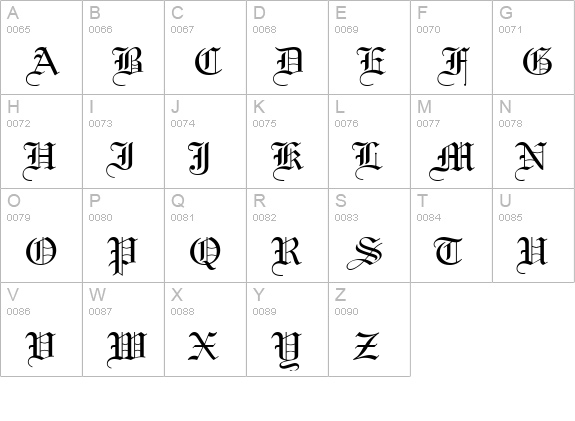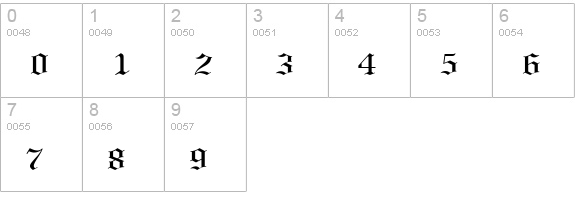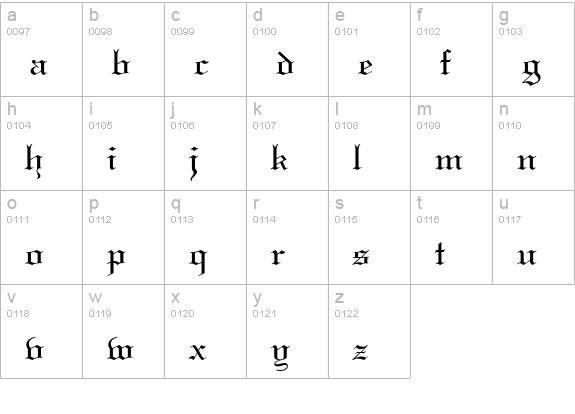
Gothic 57 Normal Font Details
Gothic 57 Normal is the standard, neutral variant in the Gothic typeface family \xE2\x80\x94 well suited to general body text, paragraphs, and standard typographic work.
Gothic 57 Normal font is a timeless and elegant typeface that exudes a sense of sophistication and mystery. Its intricate details and sharp edges give it a gothic and classic look that is perfect for a wide range of design projects. Whether you are creating invitations, posters, or branding materials, Gothic 57 Normal font will make your text stand out with its unique style. The best part about Gothic 57 Normal font is that it is available for free download at FontsMarket.com. This means you can easily access this beautiful typeface and use it in your designs without any cost. Don't miss out on the opportunity to elevate your projects with Gothic 57 Normal font's striking appearance and versatility. Download it now and add a touch of elegance to your design work!